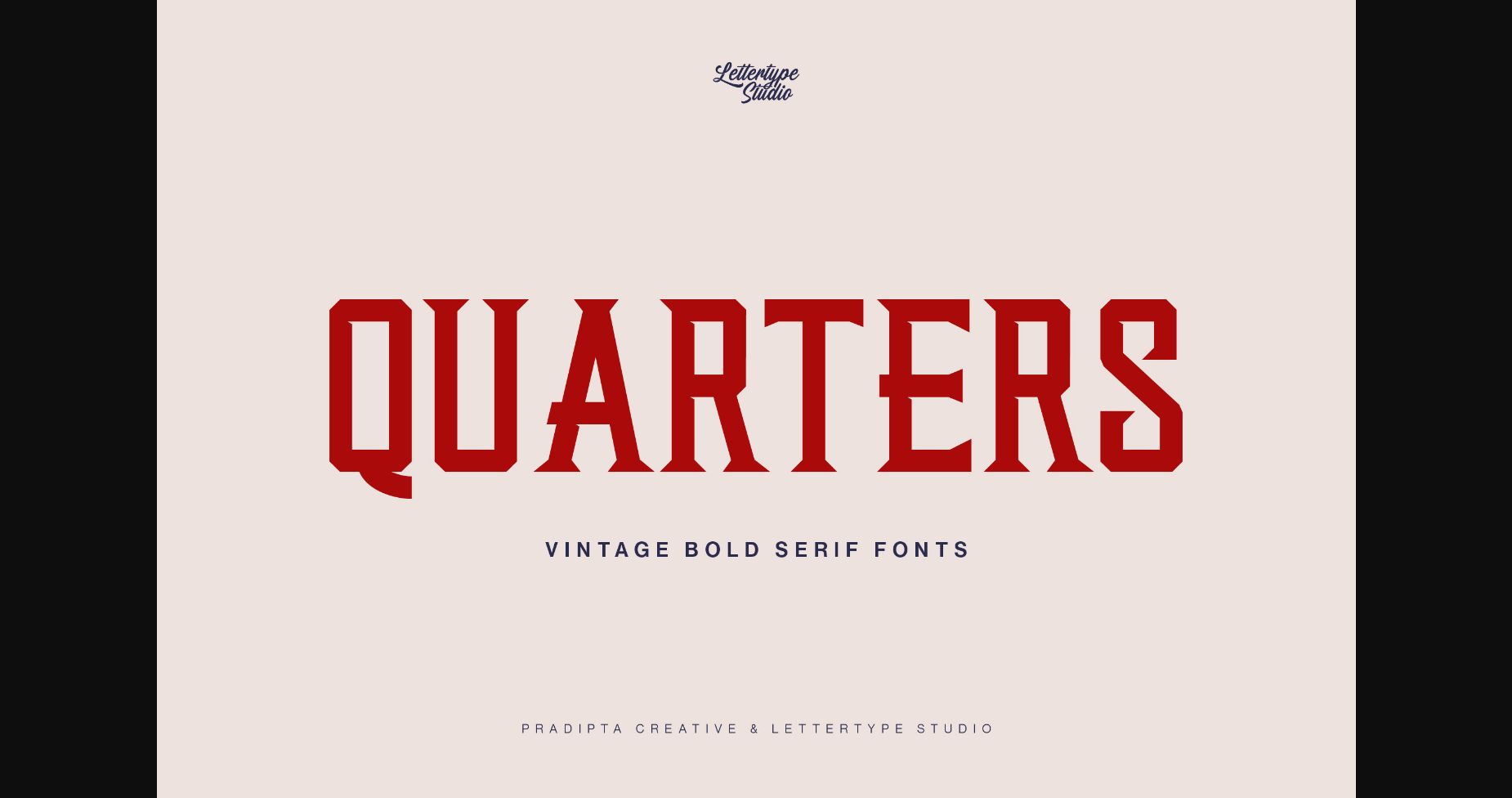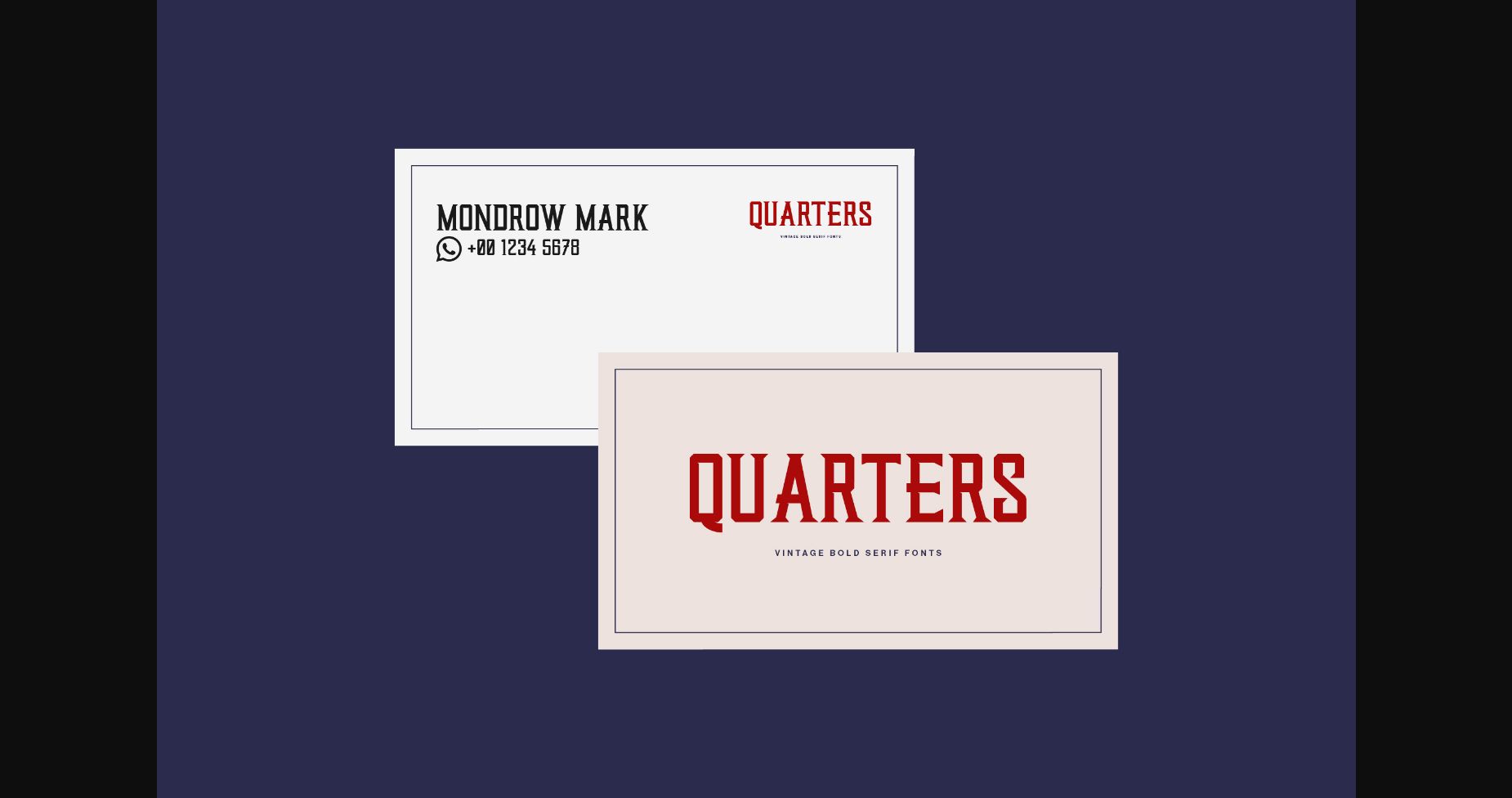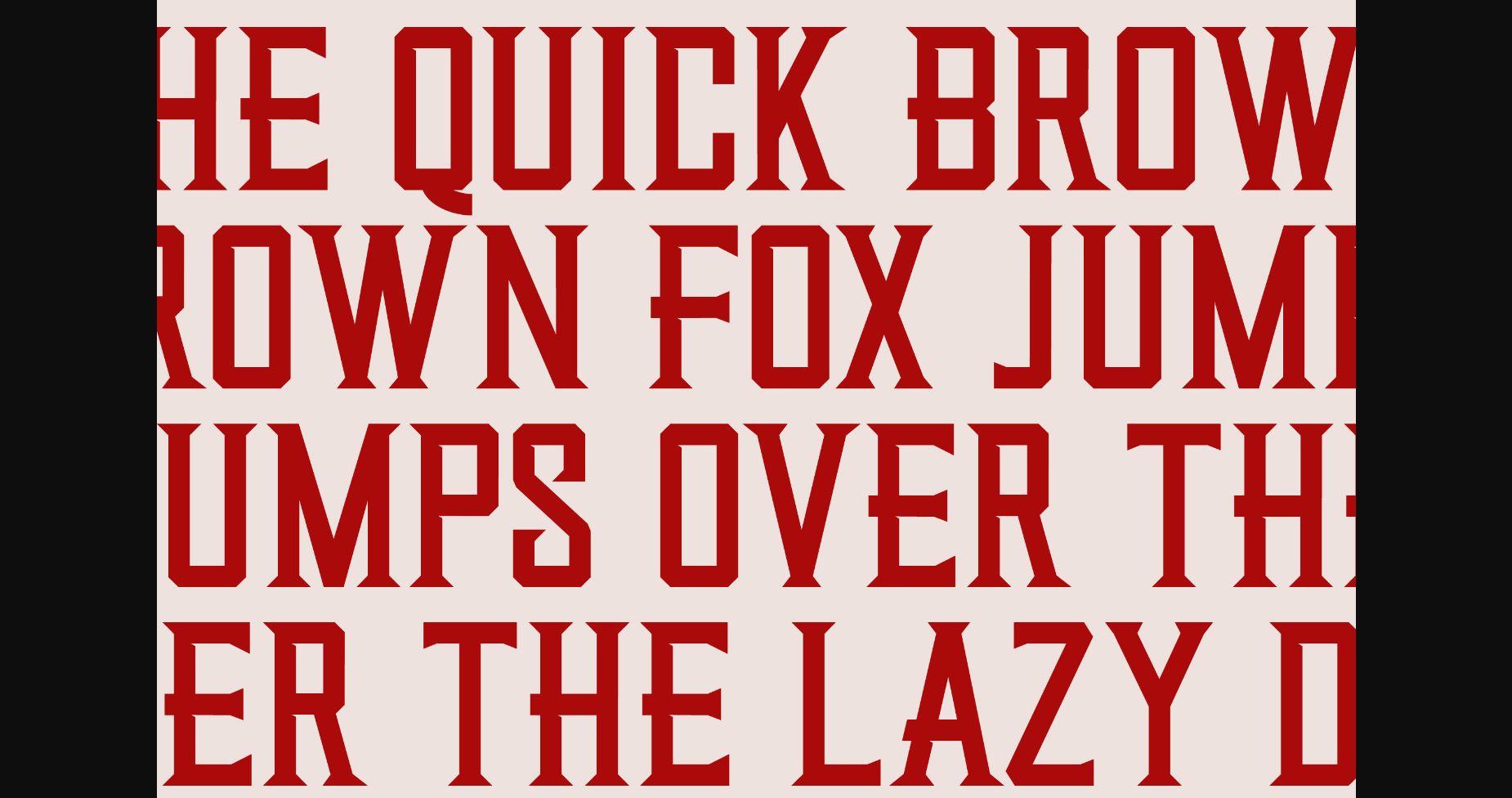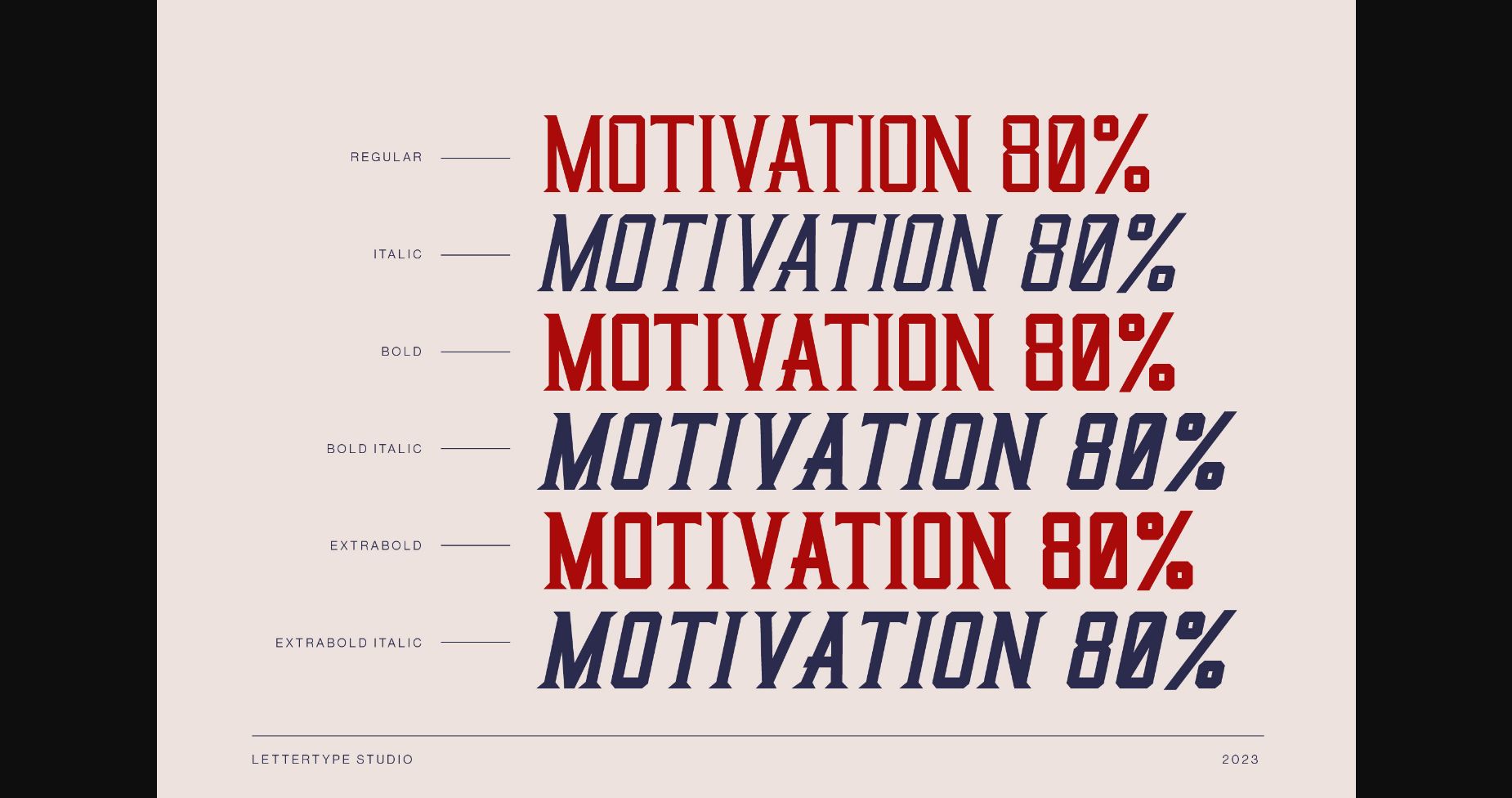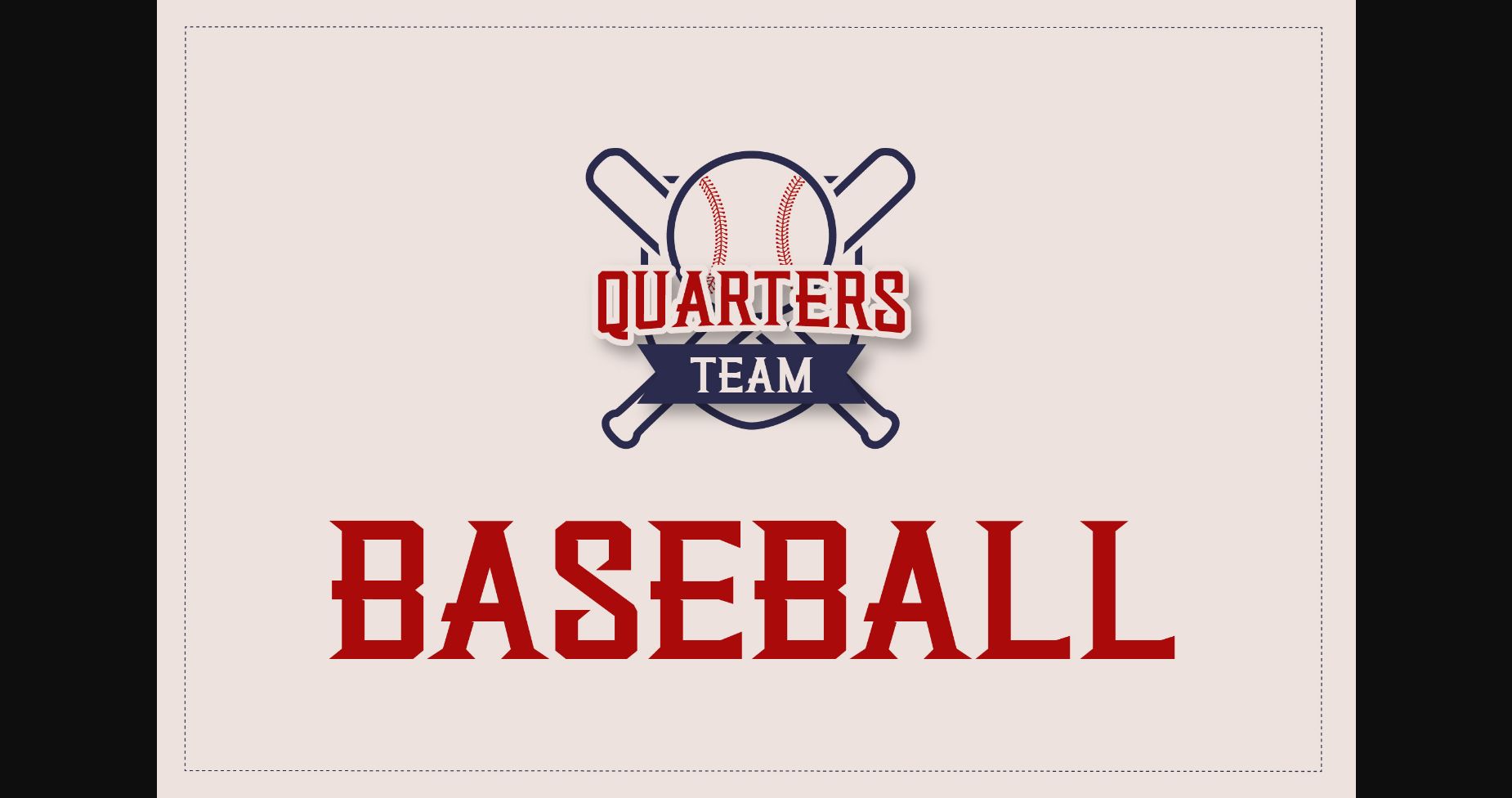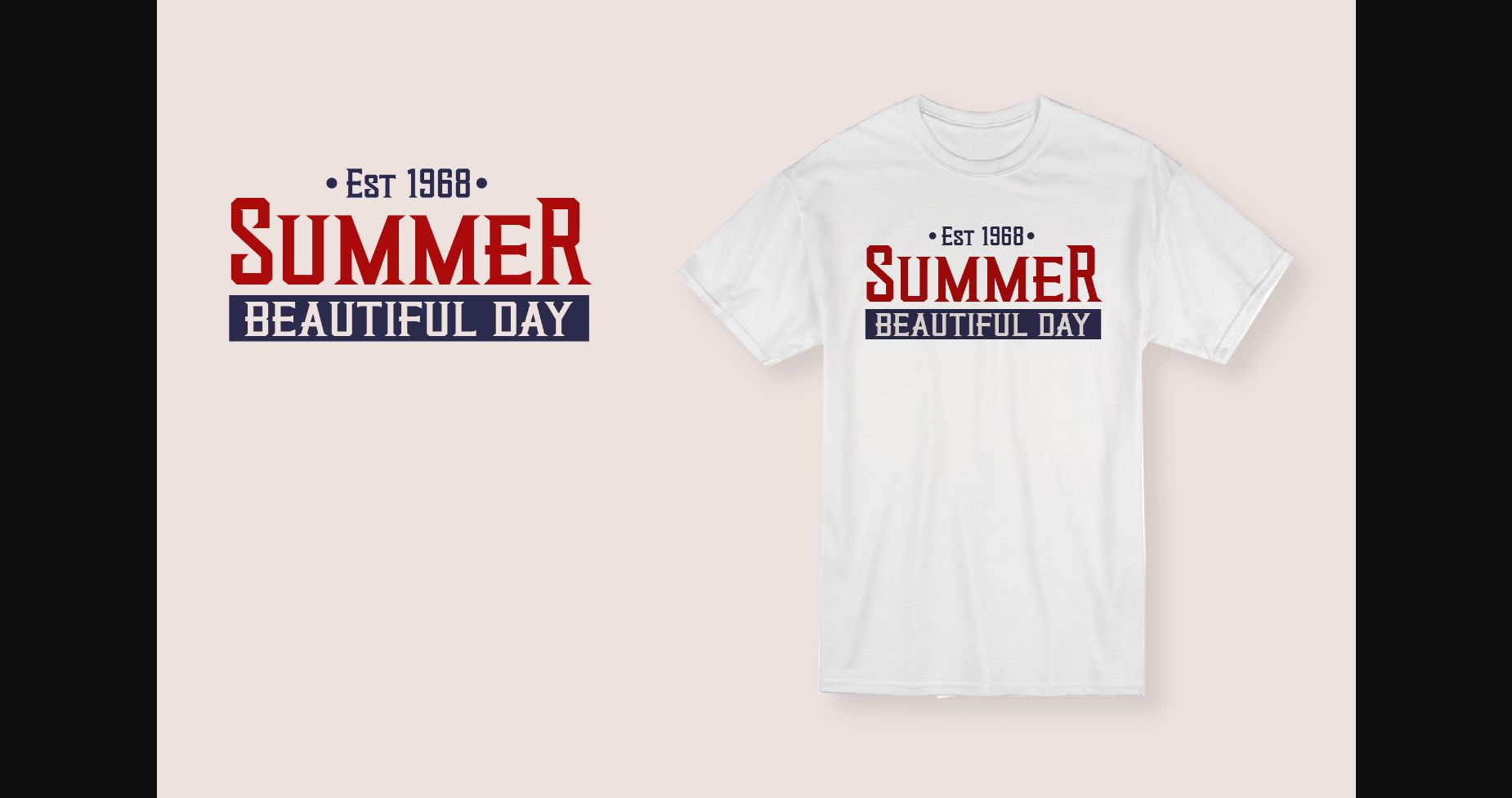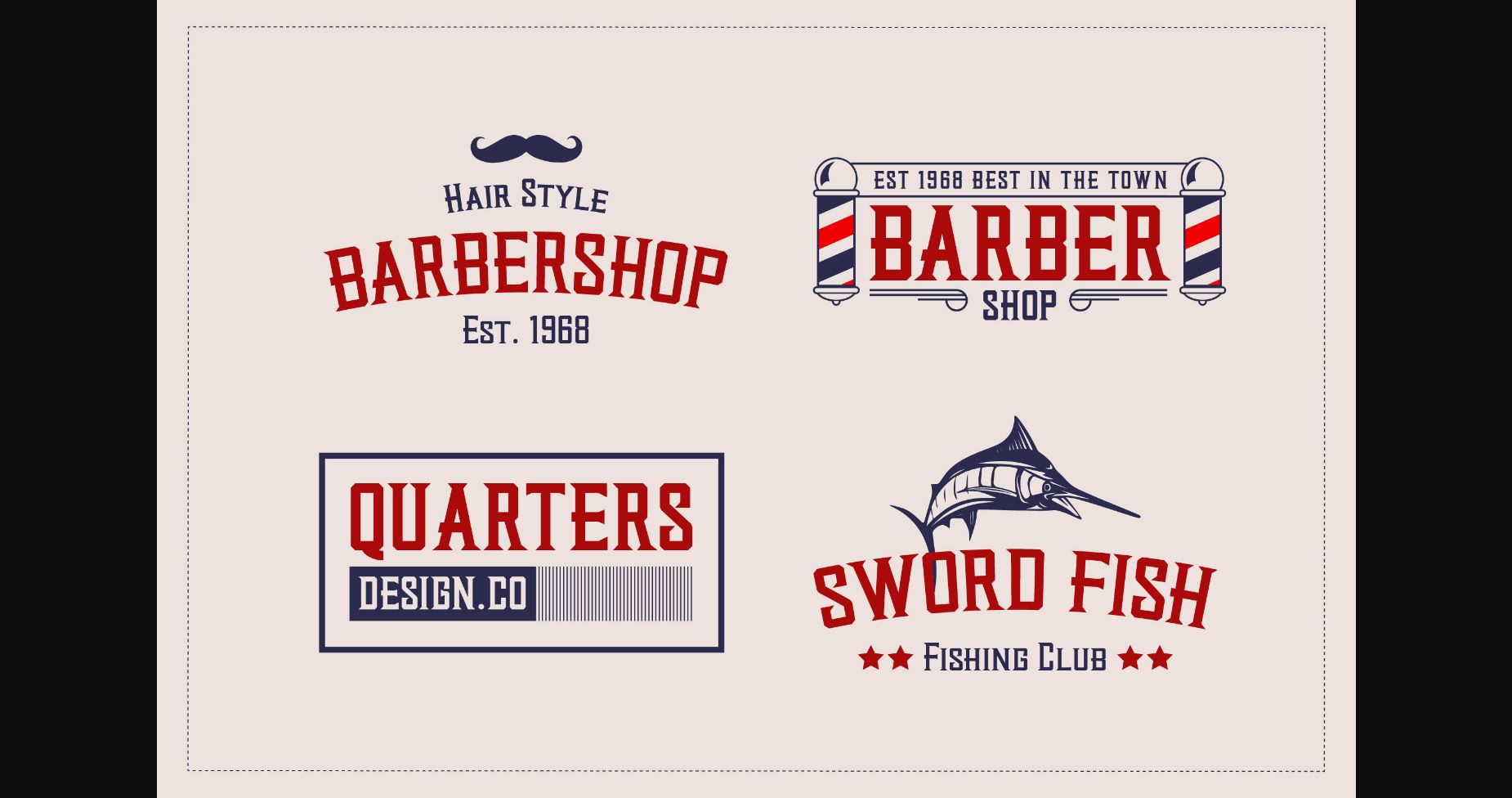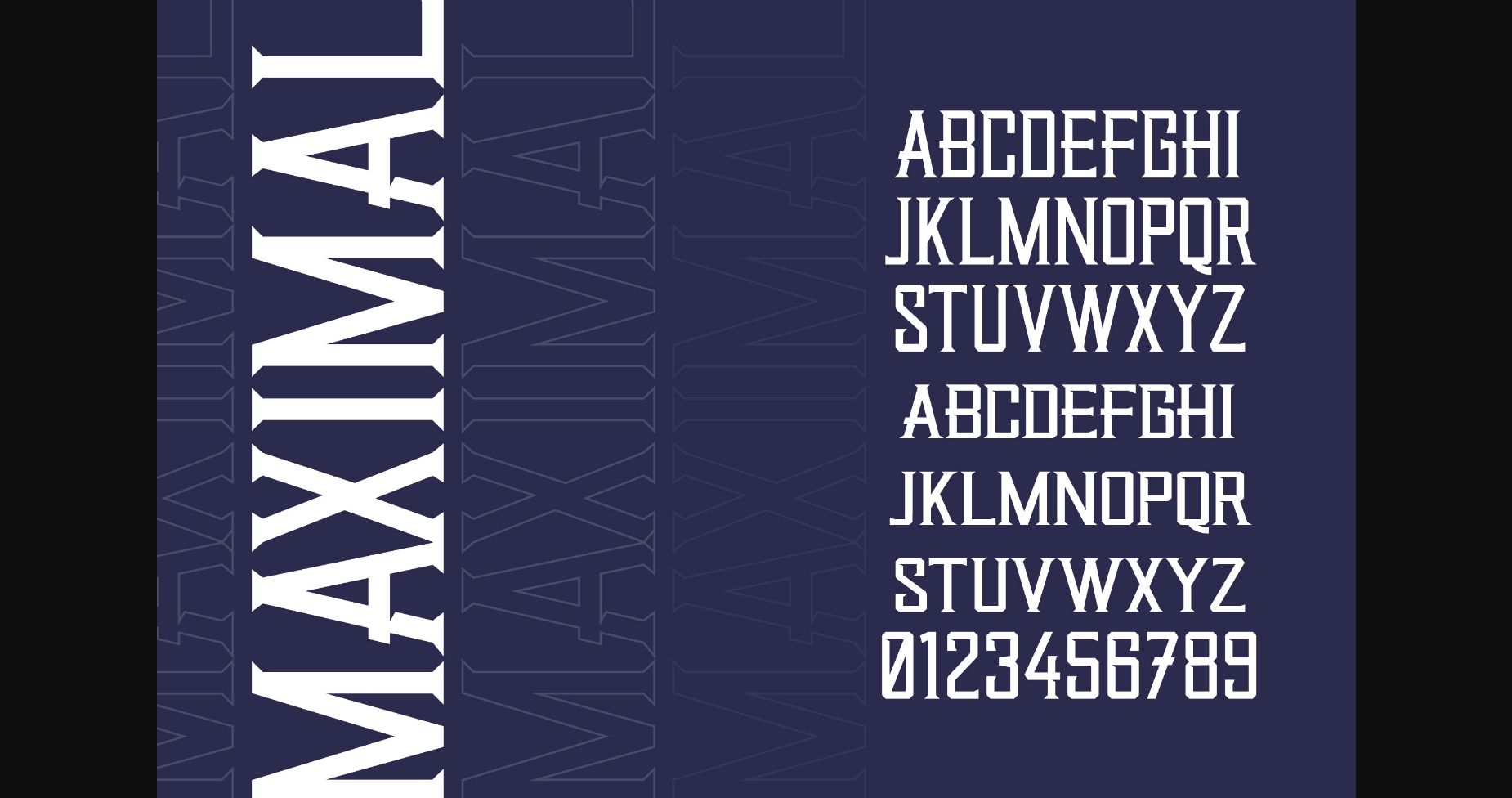
About Quarters Font
Quarters is a vintage bold serif font inspired by urban culture with strong characters. Welcome to the new bold world serif characters, that fonts will help for any of your projects.
This font will be perfect for your logo design, branding, clothing, sports graphics, posters, editorial titles, headlines, etc.